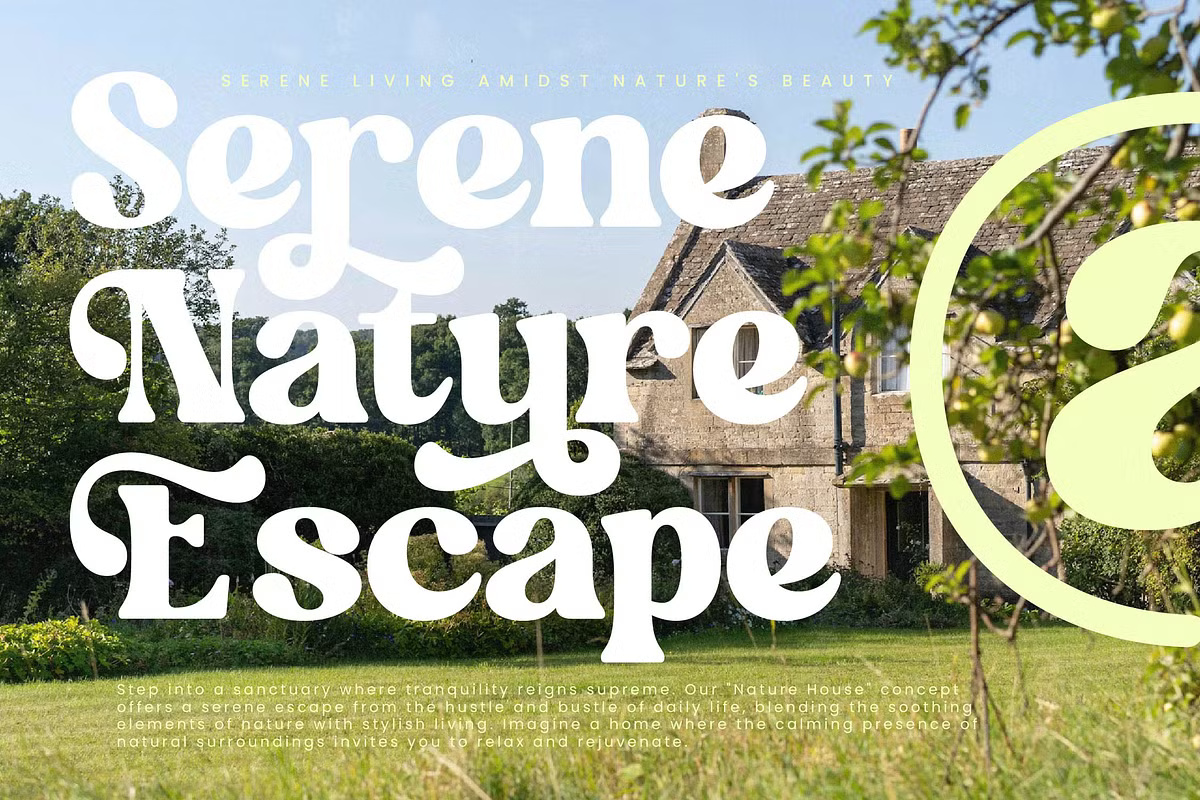
Garden Delight is a stylish retro serif font from Timelesstype.Co, designed to bring a touch of elegance and nostalgia to any creative project. Its versatile and sophisticated design makes it perfect for a wide range of applications, including logos, branding, home decor, product packaging, and fashion items like t-shirts and shopping bags. Whether you’re designing book covers, name cards, invitations, greeting cards, or labels, this font adds a luxurious and timeless appeal.
Garden Delight Serif Font